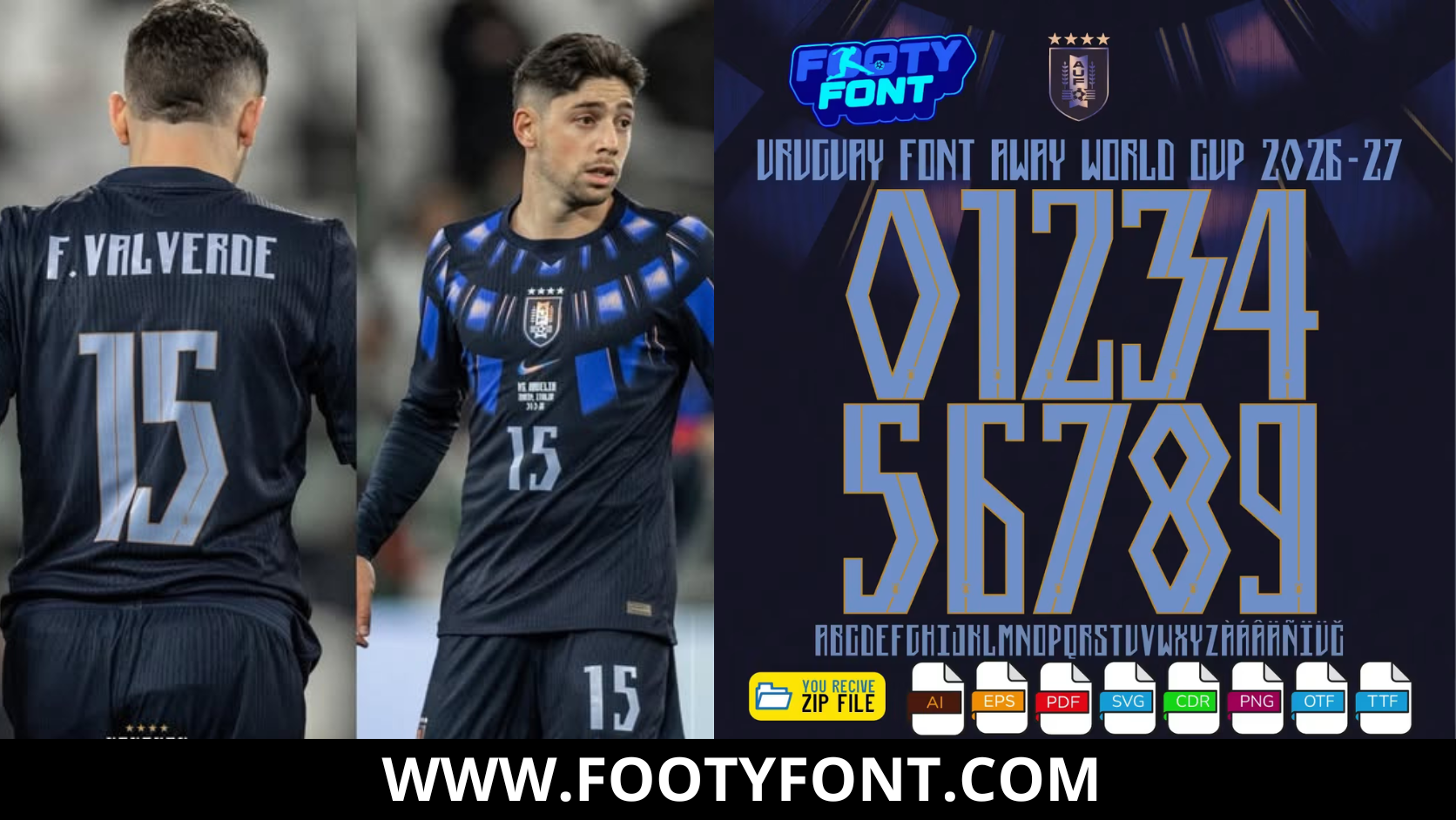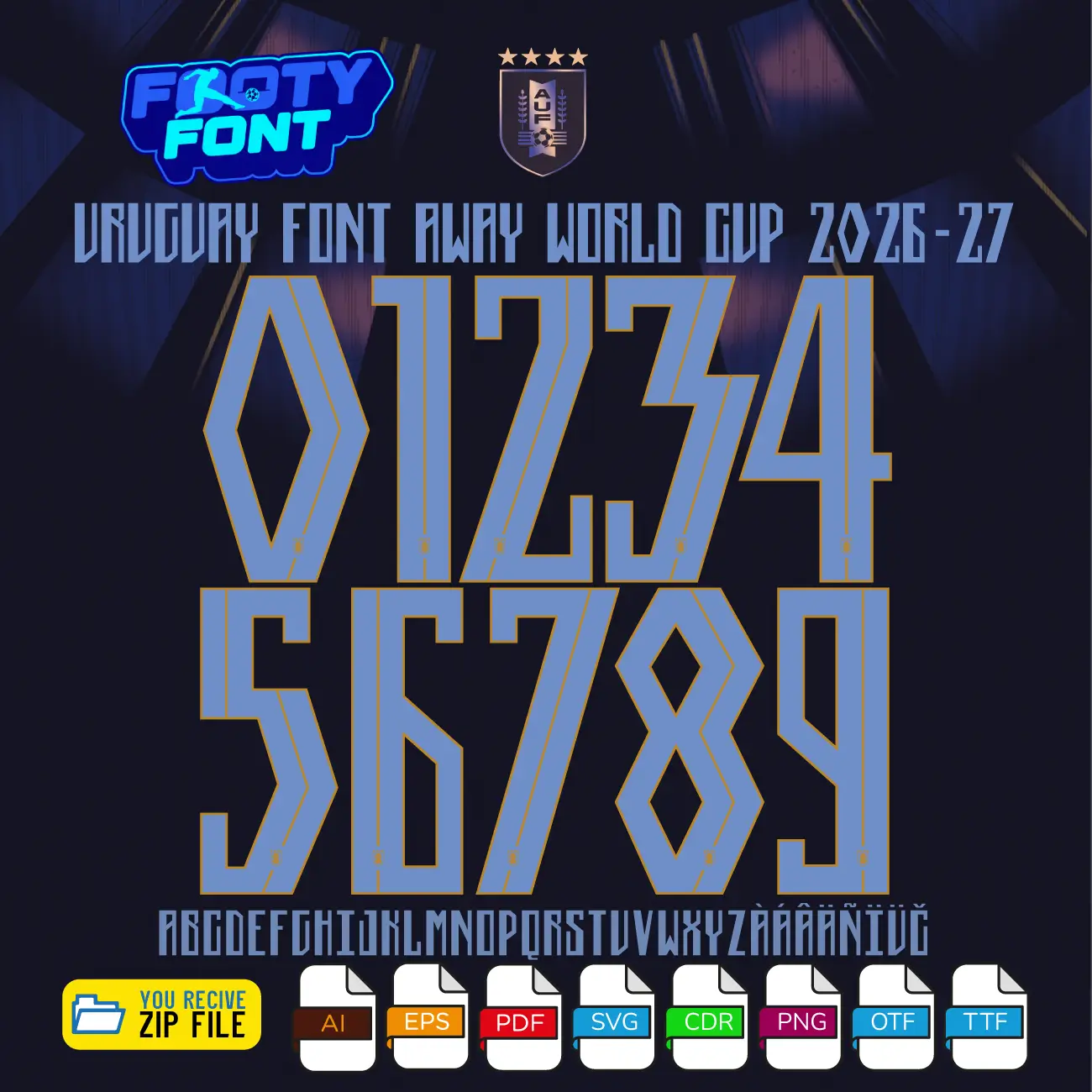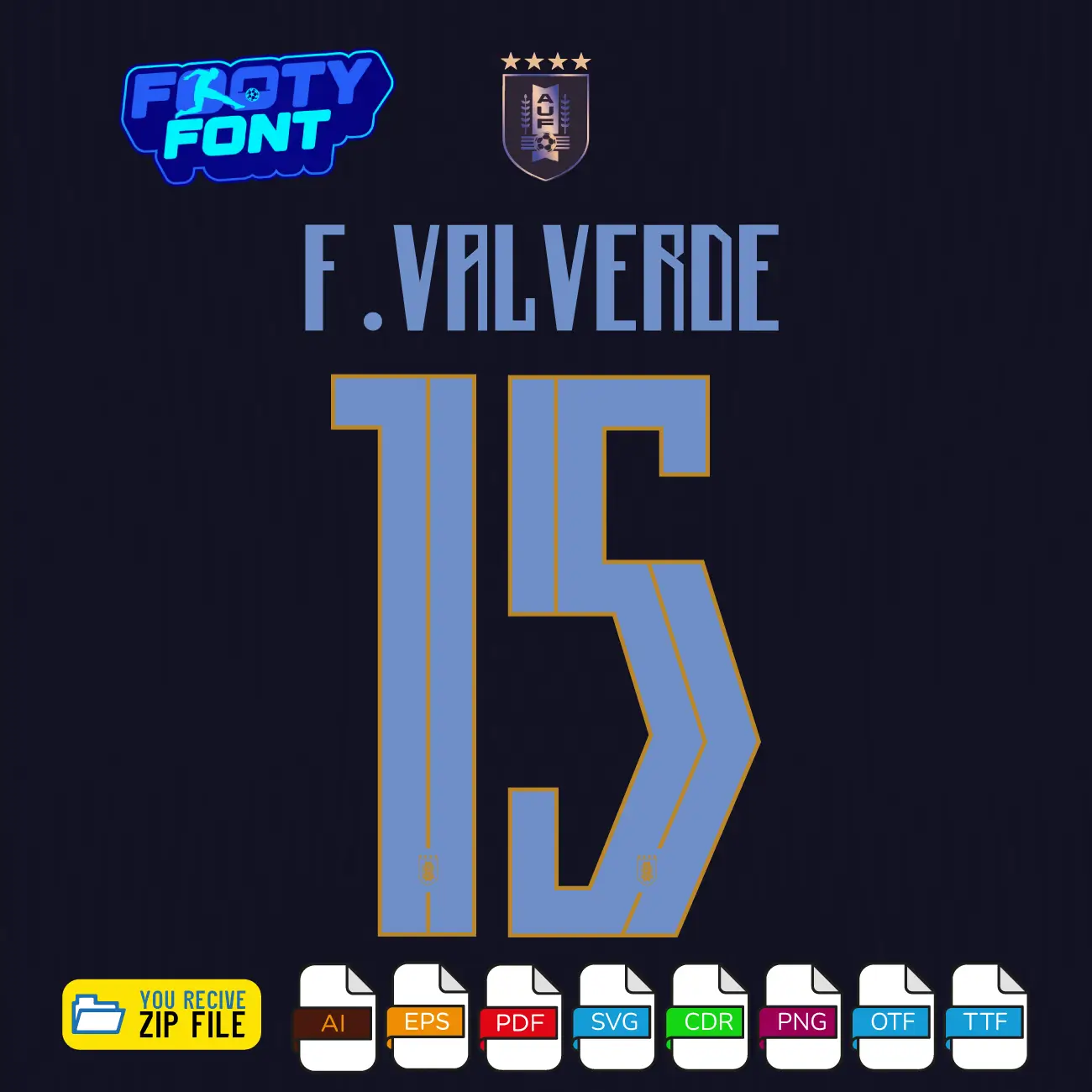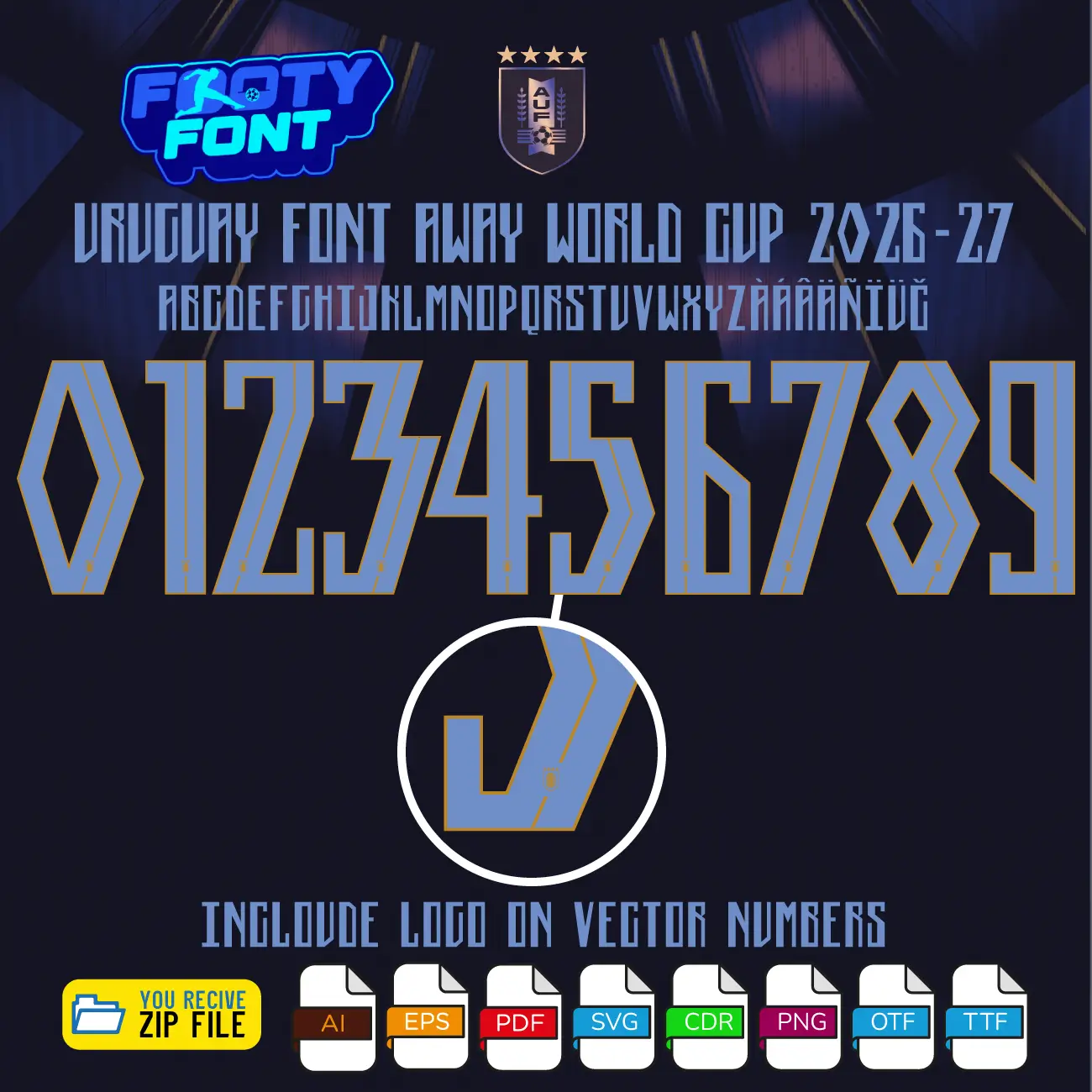
Uruguay 2026 Football Font
Bring the fierce Garra Charrúa spirit to your designs with this font football, inspired by the Uruguay 2026 World Cup away kit. This high-quality typeface is meticulously designed to replicate the sharp, angular lettering worn by La Celeste on the road. It features striking light blue numbers with gold accents that pop flawlessly against their dark navy alternative jerseys.
This font captures the elite, powerful style of Uruguay’s biggest stars like Federico Valverde, Darwin Núñez, Ronald Araújo, and Manuel Ugarte. As Uruguay fights for glory on the world stage in 2026, this away font is an absolute must-have for fans creating custom jersey designs, digital art, streetwear, or matchday posters.